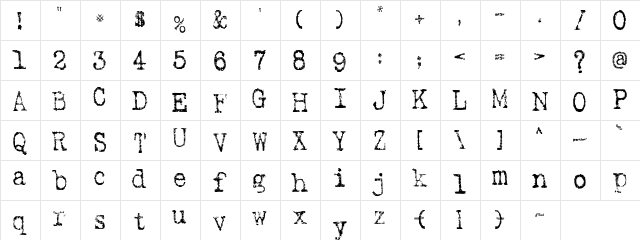
SA Inkspot regular
Design Context for SA Inkspot Typeface
SA Inkspot is a composed and adaptable typeface that performs quietly and consistently across a wide range of design contexts.